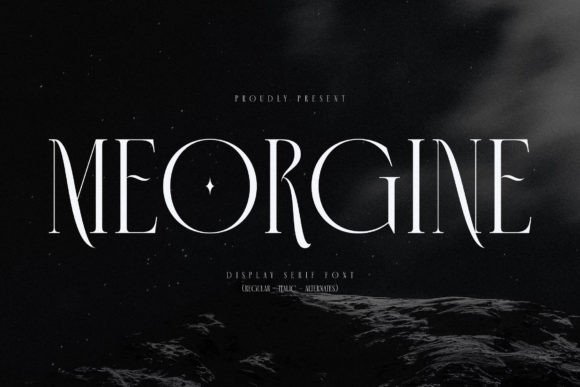
Welcome to the world of Meorgine, a serif font family that exudes sophistication and elegance. Crafted by the renowned Storytype Studio, Meorgine is not just a collection of letters; it's an art form that breathes life into your designs. Immerse yourself in the captivating world of Meorgine, where your creative visions will flourish like never before.
**A Timeless Masterpiece for Vintage Designs:**
Meorgine's essence lies in its ability to effortlessly capture the essence of vintage aesthetics. Its meticulously designed curves and delicate serifs evoke a sense of nostalgia and charm, transporting you to an era of timeless elegance. Whether you're designing a retro poster, a vintage-inspired logo, or a captivating book cover, Meorgine provides the perfect foundation for your creative endeavors.
**Unleash Your Creativity with Endless Possibilities:**
With Meorgine, the possibilities are limitless. Its versatility extends far beyond vintage designs, making it a perfect choice for a wide range of projects. Create stunning fashion logos, design eye-catching magazine layouts, or add a touch of sophistication to your clothing labels. Meorgine's versatility knows no bounds, allowing you to explore your creative horizons and bring your unique vision to life.
**Elevate Your Designs with a Touch of Luxury:**
Meorgine is more than just a font; it's a symbol of luxury and refinement. Its intricate details and graceful lines exude an aura of elegance that will elevate your designs to new heights. Imagine a wedding invitation adorned with Meorgine's delicate serifs, or a business card that commands attention with its luxurious typography. Meorgine transforms the ordinary into the extraordinary, adding a touch of sophistication to every project it graces.
**A Font Family Rooted in Tradition, Soaring towards Modernity:**
Meorgine is a harmonious blend of tradition and modernity. It draws inspiration from classic serif fonts, paying homage to the timeless elegance of the past. Yet, it also embraces a contemporary aesthetic, ensuring that your designs stay relevant and captivating in today's fast-paced digital world. Meorgine strikes the perfect balance between tradition and innovation, allowing you to create designs that stand the test of time while remaining fresh and modern.
**Experience the Meorgine Difference:**
Choosing Meorgine is not just a choice of font; it's an investment in your creative journey. Meorgine empowers you to express your individuality, to capture the hearts of your audience, and to leave a lasting impression. Its timeless beauty and versatility will accompany you through countless projects, becoming an indispensable tool in your design arsenal. Embrace the Meorgine experience today and unlock the full potential of your creativity.